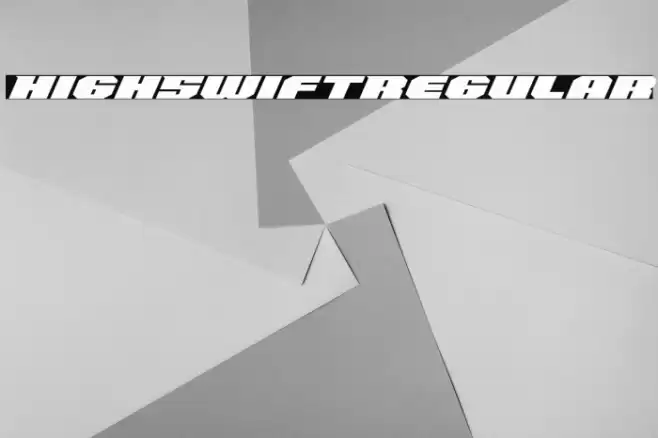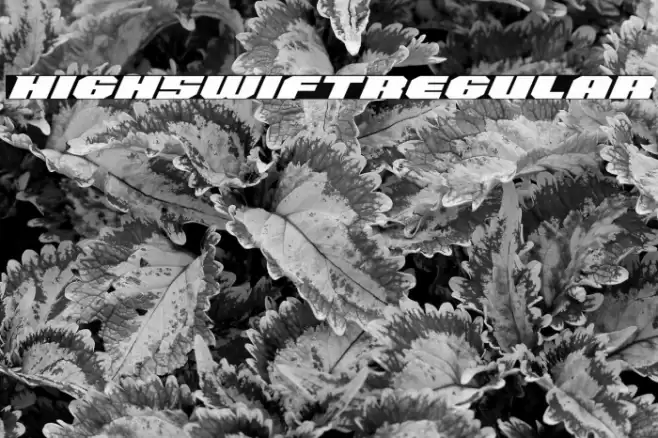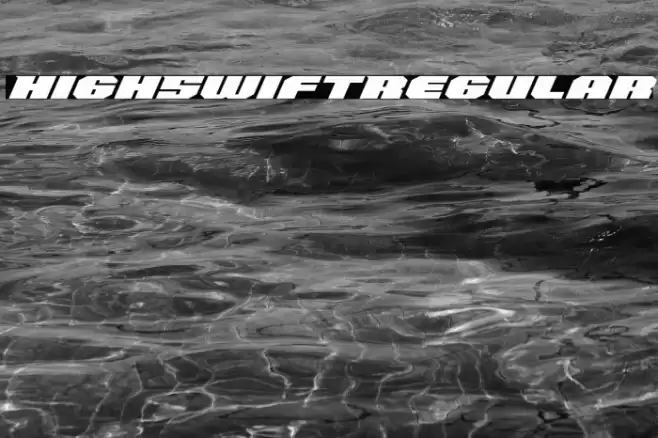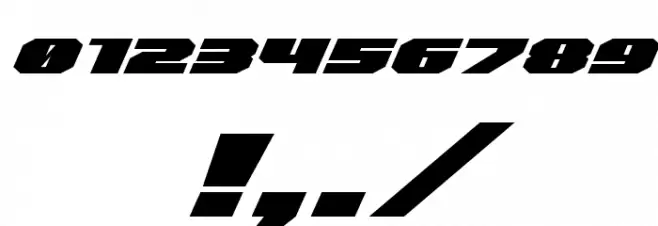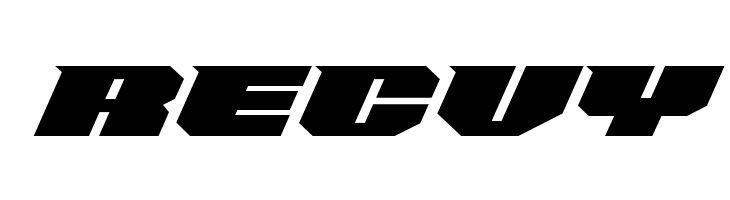
HighSwift-Regular Font
HighSwift-Regular Description
This font features a bold, angular design with a futuristic and dynamic appearance. The characters are sharply cut with a distinct slant, giving an impression of speed and movement. The uppercase letters are particularly striking, with wide, blocky forms that convey strength and modernity. The lowercase letters maintain the same angular style, ensuring consistency across the typeface. Numbers and special characters follow the same design principles, making them easily recognizable and cohesive with the rest of the font. The overall aesthetic is suitable for projects that require a bold statement or a modern, tech-inspired look.
A bold, angular font with a futuristic and dynamic style from Regular fonts.
- Proposed Projects: Ideal for sports branding, technology logos, video game titles, and dynamic posters.